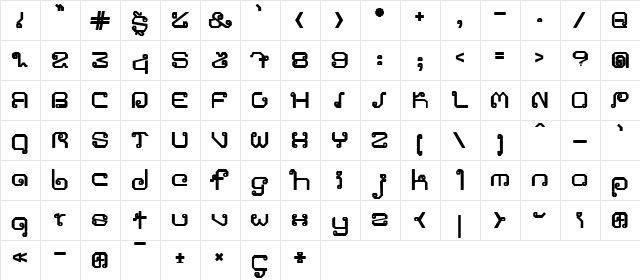
Khmer Bold
| Foundry | Tom Tor, |
| Designer | Tom Tor |
Design Context for Khmer Typeface
Khmer offers clean, dependable letterforms without strong stylistic allegiance, making it a practical choice for designers who need flexibility. The heavy weight commands attention and anchors typographic hierarchies.